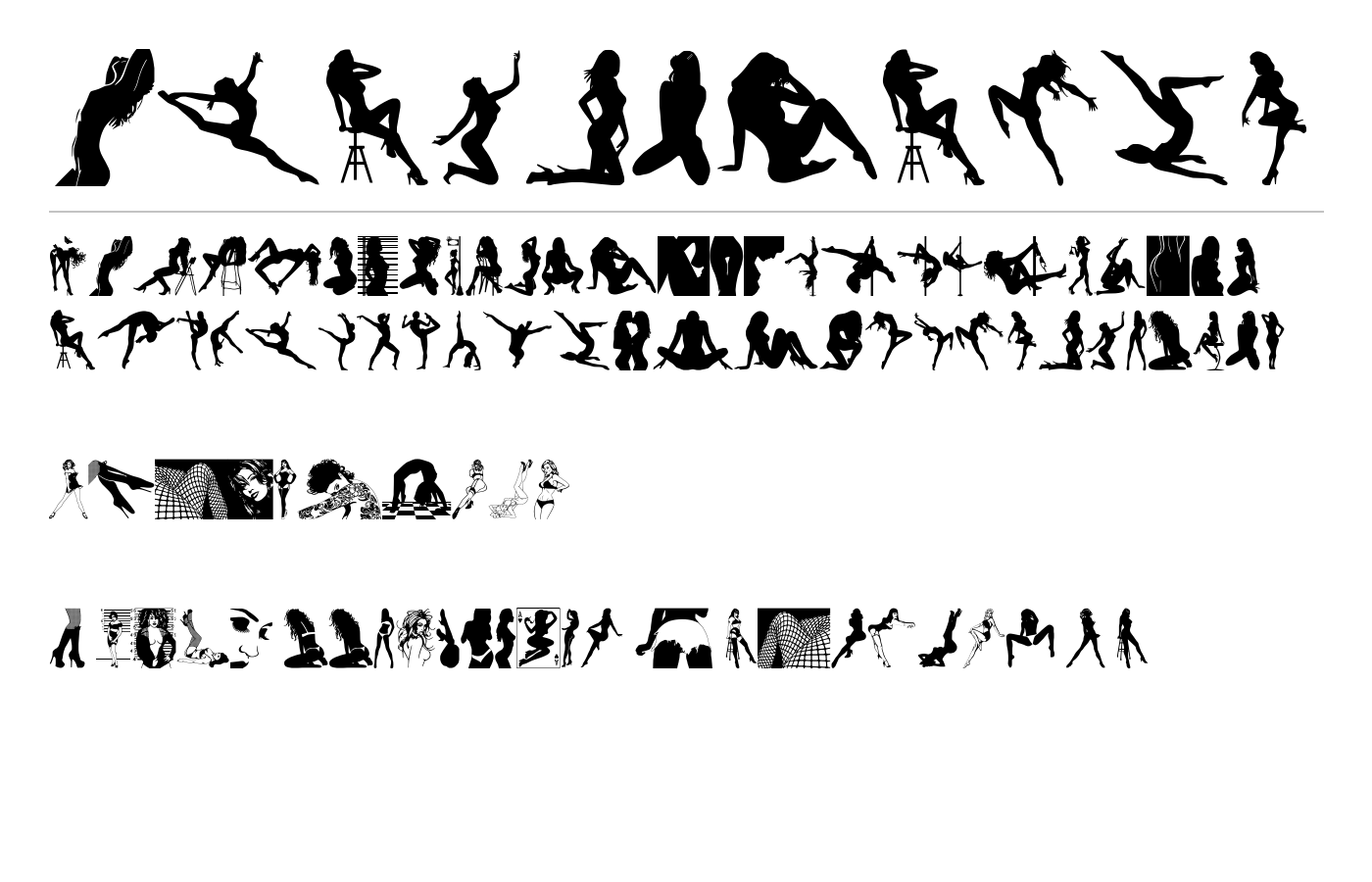
BeautyMarks Font is a symbol typeface featuring detailed silhouettes of female figures in various poses, presenting an artistic and sensual style. This decorative font works best for creative branding, fashion-related projects, and unique graphic designs where a bold, expressive visual element is needed to convey elegance and allure. Its highly stylized, silhouette-based icons add a striking, modern touch but are best suited for display use rather than body text.
BeautyMarks Font